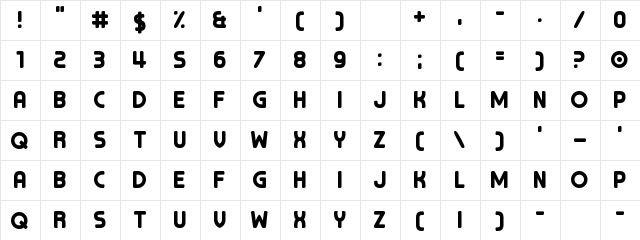
Chocolate Cavalcade Regular
Design Context for Chocolate Cavalcade Typeface
Chocolate Cavalcade is a composed and adaptable typeface that performs quietly and consistently across a wide range of design contexts.